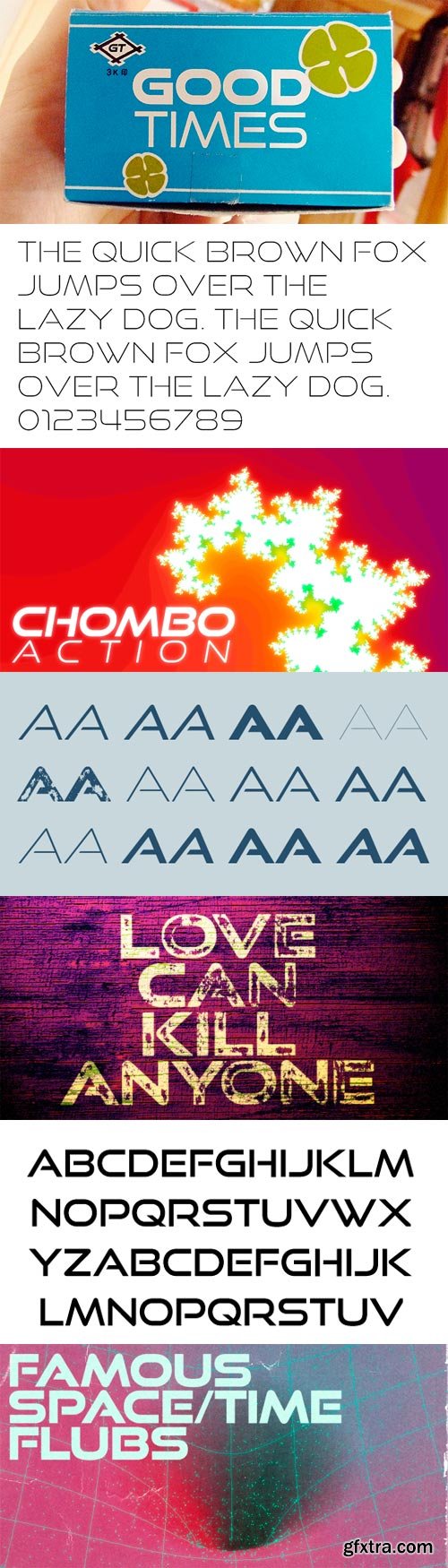
Good Times was originally created in 1998 and has been overhauled a decade later. Accents cover more languages. Good Times now includes fractions & numeric ordinals. When you're using Good Times Bad Times in an OpenType savvy application, common letter pairs will be automatically replaced by custom pairs for a more realistic, stamped effect.